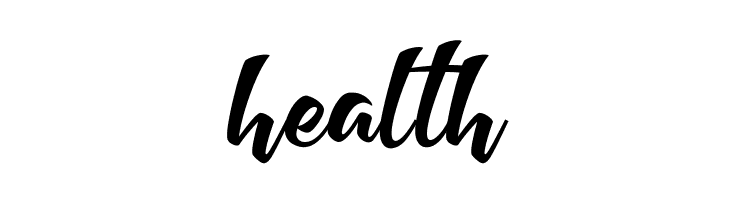
• Andai Kata
A bold, expressive handwritten font with dynamic strokes.
• Loskatos Free Regular
( Fonts by Maulana Creative )
A bold, playful font with a hand-drawn, energetic style.
• Katracy
A bold, expressive handwritten font with fluid, dynamic strokes.
• Katlyne
An elegant script font with flowing, cursive letterforms and refined flourishes.